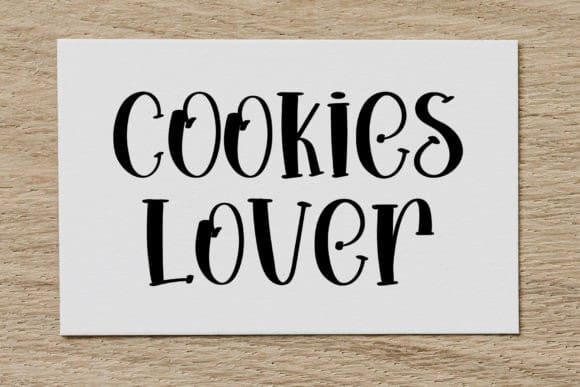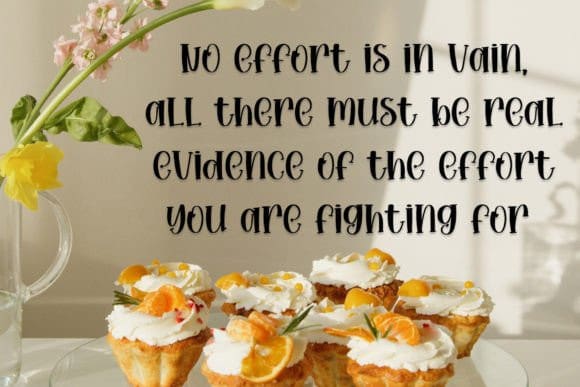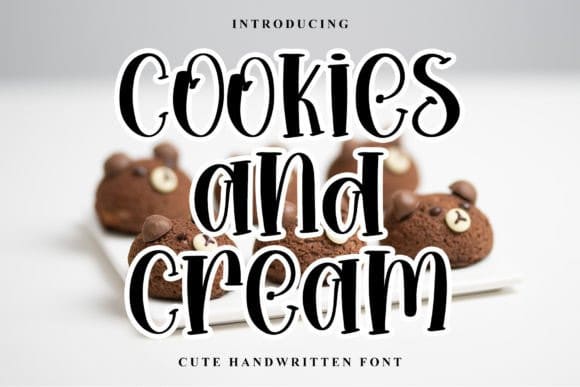
Cookies And Cream Font
Cookies And Cream Font is a neat and beautiful handwritten font described by an elegant touch, perfect for your favorite projects. Fall in love with its incredibly distinct and timeless style, and use it to create spectacular designs!